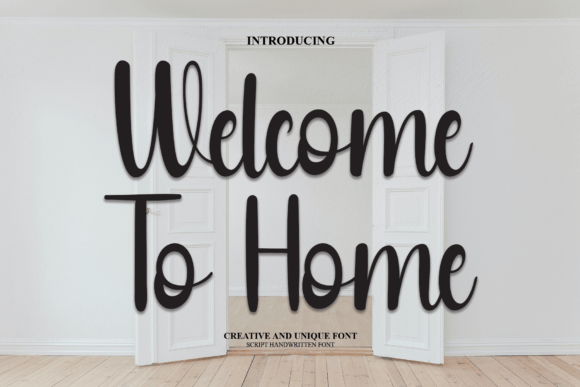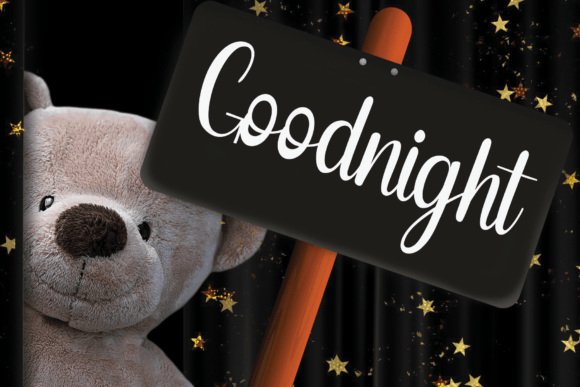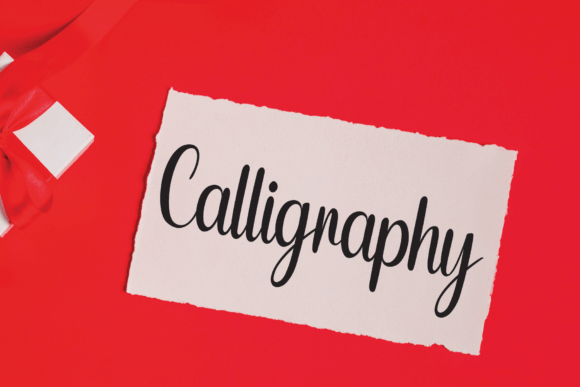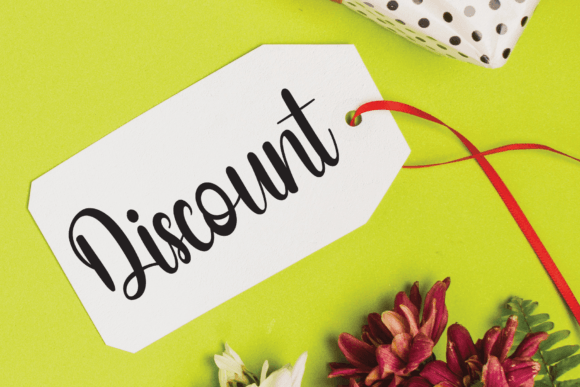
Welcome to Home Font
About Welcome to Home Font
“Welcome to Home” is a captivating script font that seamlessly merges modernity with a unique shape and a natural writing style. This font provides a versatile and expressive foundation for crafting beautiful typographic designs across various applications, including branding, web design, editorial work, prints, crafts, and quotes.
The modern and distinctive shape of “Welcome to Home” adds a contemporary flair to your designs, making it an ideal choice for a diverse range of creative projects. Its natural writing style imparts an authentic and inviting feel, making it well-suited for creating memorable and impactful designs.
Whether you’re working on logotypes, designing wedding invitations, crafting romantic cards, labels, or packaging, “Welcome to Home” offers a creative canvas to bring your ideas to life. Its adaptability and aesthetic appeal make it a valuable asset for adding a personalized touch to names and conveying a sense of warmth and uniqueness.
“Welcome to Home” transforms your creative ideas into visually stunning designs, enhancing their overall impact and resonance. Its versatility allows it to seamlessly integrate into different design contexts, making it a reliable choice for a wide array of projects.
Embrace the beauty and flexibility of “Welcome to Home” as you embark on your design journey. From digital platforms to tangible items, this font serves as a dynamic tool, ready to elevate your typographic creations to new heights of creativity and style. Watch as “Welcome to Home” becomes an integral part of your design toolkit, inspiring and enhancing your artistic vision with every stroke.